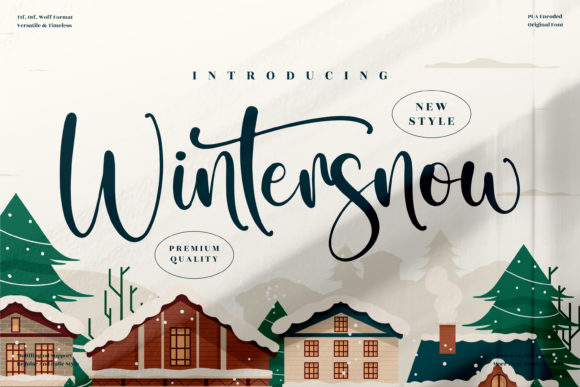
Are you looking for the perfect script font for your website headers? Look no further than Wintersnow Font, created by Perspectype.
This flowing handwritten font has an elegant touch that will add a touch of sophistication to your projects. With its distinct and timeless style, Wintersnow Font is perfect for creating eye-catching designs that will stand out from the crowd.
Whether you're designing a logo, creating a website, or putting together a marketing campaign, Wintersnow Font is the perfect choice. It's versatile enough to be used in a variety of contexts, and its flowing, handwritten style will add a personal touch to any project.
But Wintersnow Font isn't just beautiful – it's also incredibly easy to use. With its clean, simple lines and intuitive design, you'll be able to create stunning designs in no time. And with a variety of weights and styles to choose from, you can customize your designs to suit your needs.